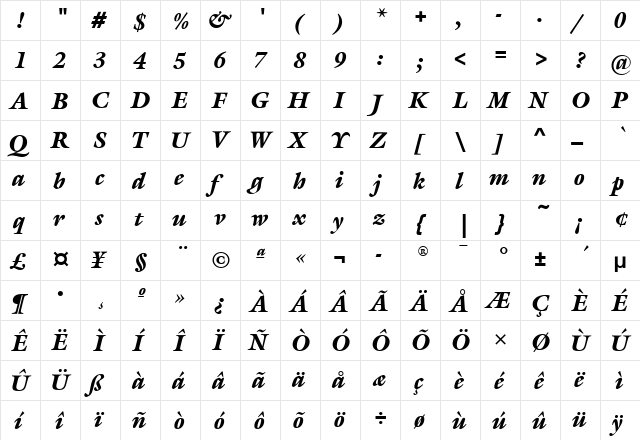
GalliardITC Black Italic
Design Context for GalliardITC Typeface
GalliardITC is a composed and adaptable typeface that performs quietly and consistently across a wide range of design contexts. The slanted form adds forward momentum and visual energy.
Pro Tip: Try GalliardITC for annotation and caption copy alongside an upright companion — the contrast in angle creates a dynamic but ordered typographic system.